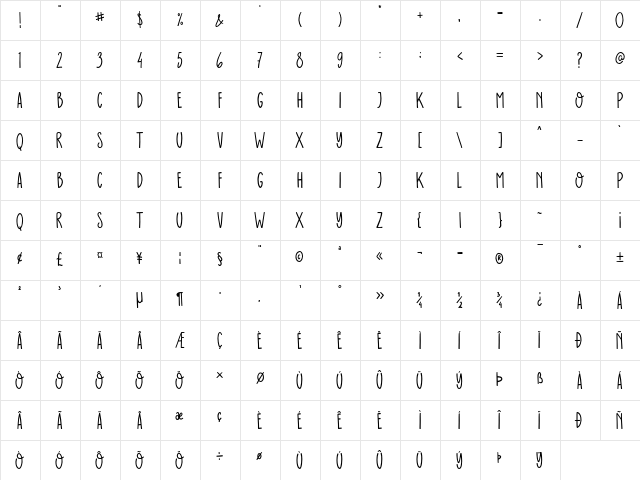
Paradise Island Regular
| Foundry | Subectype |
| Designer | Rangga Singgih Subekti |
Design Context for Paradise Island Typeface
Paradise Island is a composed and adaptable typeface that performs quietly and consistently across a wide range of design contexts.